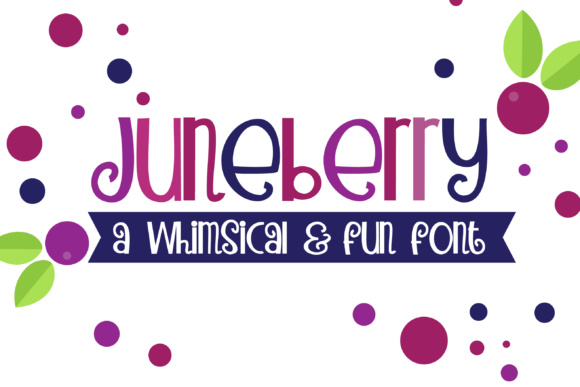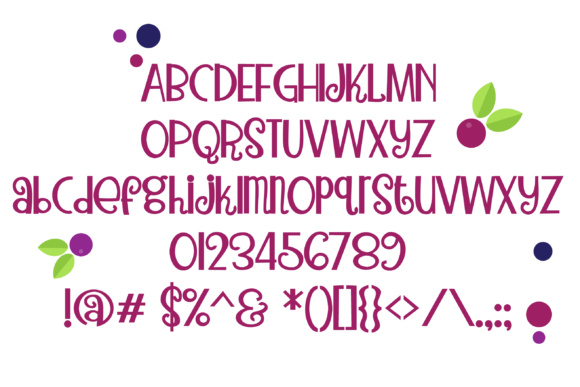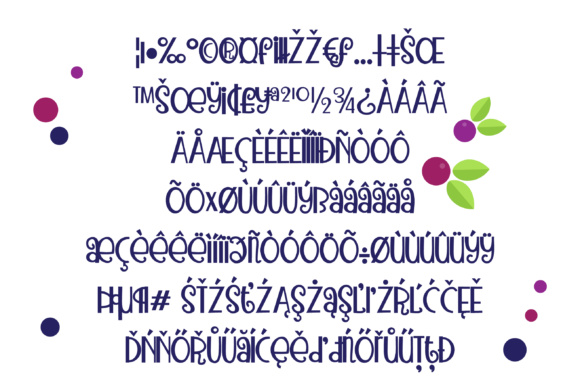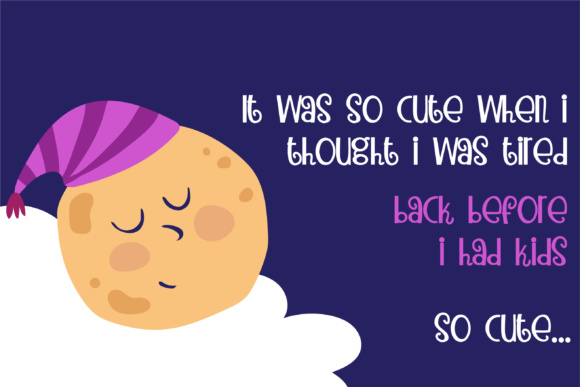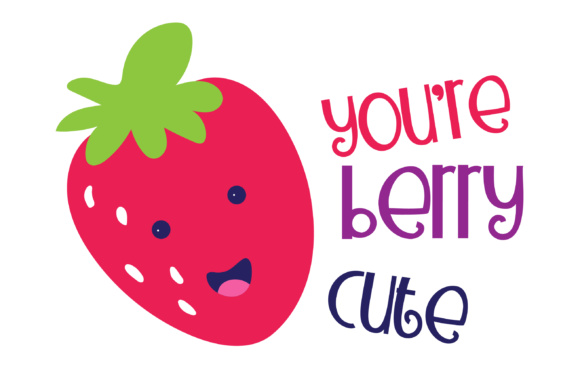
HomeScript FontsPN Juneberry Font Script Fonts PN Juneberry Font FacebookXPinterestWhatsApp PN Juneberry Font Poster 2 PN Juneberry Font Poster 3 PN Juneberry Font Poster 4 PN Juneberry Font Poster 5 About PN Juneberry Font This whimsical font is sporting a few curls and has no real descenders in the lowercase. DOWNLOAD ON CREATIVE FABRICAThis font is sold and delivered by Creative Fabrica. Font Canyon may earn a commission if you buy through this link. People also explored Aerilay Font Rhondal Font Dickerson Gatory Font Belalatia Font Never Mars Font Rustic Font Solid Craft Font Japan Tour Font Metro Barat 285 0 TagsPN Juneberry Font Previous articleAgustina FontNext articleHastungkoro Duo Font LEAVE A REPLY Cancel reply Comment: Please enter your comment! Name:* Please enter your name here Email:* You have entered an incorrect email address! Please enter your email address here Website: Save my name, email, and website in this browser for the next time I comment. Personal Use Free Rembank Personal Use Free Read more about this font Good Mood Personal Use Free Read more about this font Barbatrick Personal Use Free Read more about this font Straighler Personal Use Free Read more about this font BLOG Elegant Wedding Invitation Fonts – Handwritten & Script Fonts Elegant Wedding Invitation Fonts Your wedding day is one of the most important moments of your life, and every detail matters—including your invitation design. Our... Best Fonts for YouTube Videos: Make Your Thumbnails Stand Out Free Fonts Risk: Why Free Fonts Can Be Dangerous for Designers How to Install and Use Fonts on Windows, macOS, and Web Projects